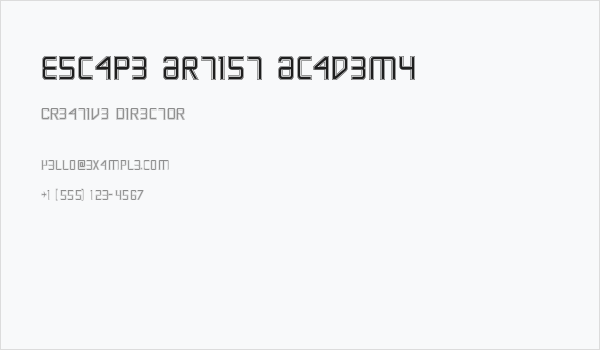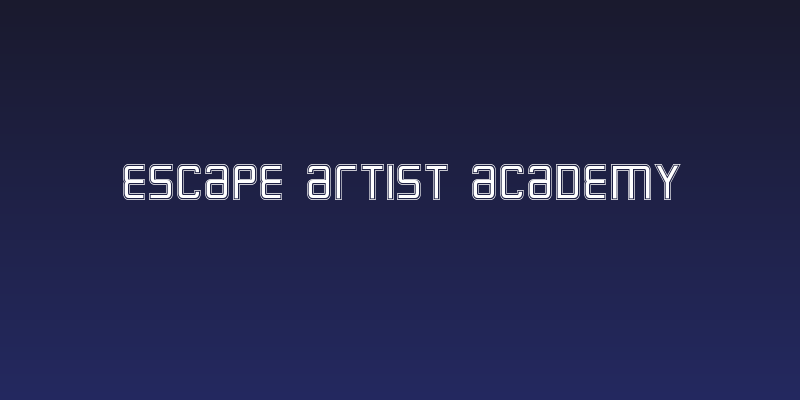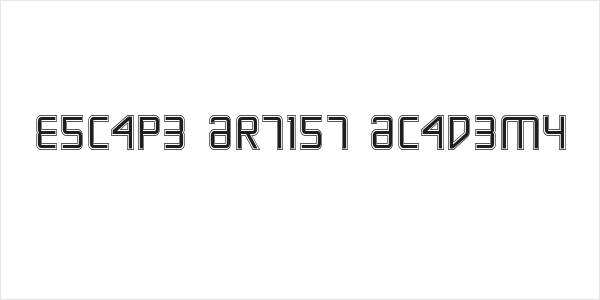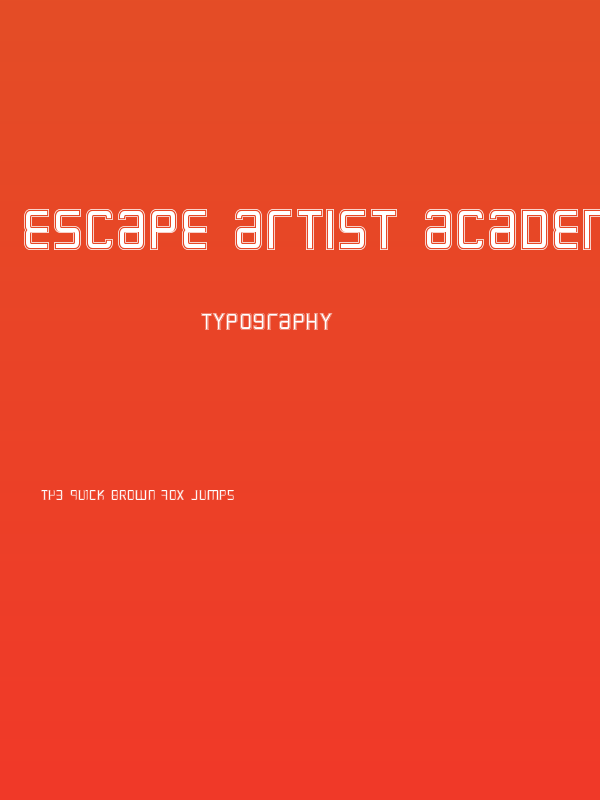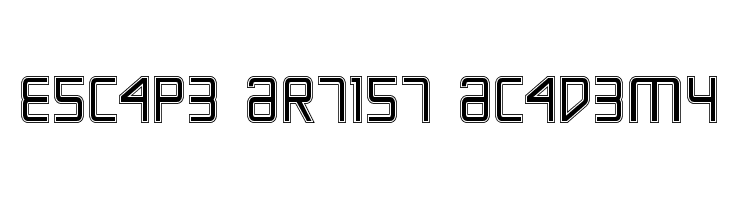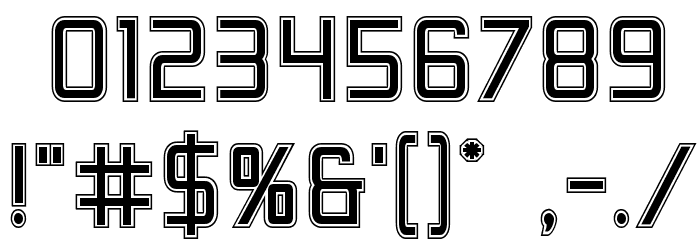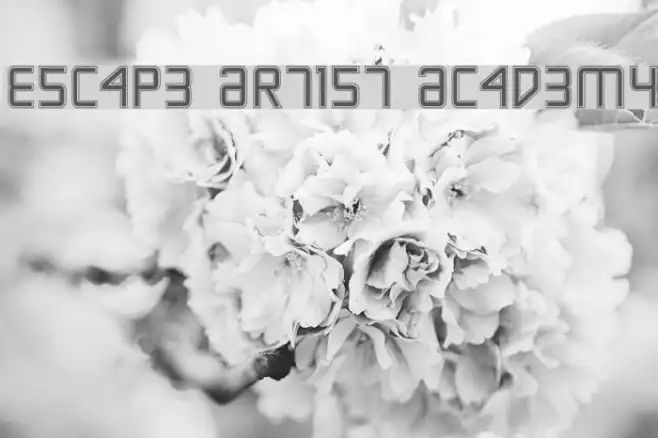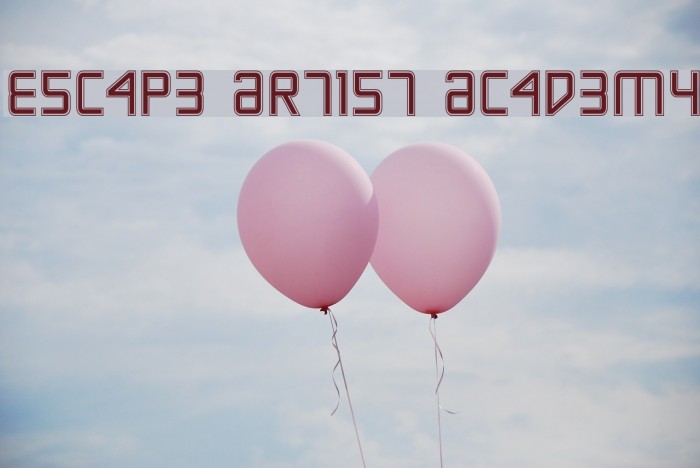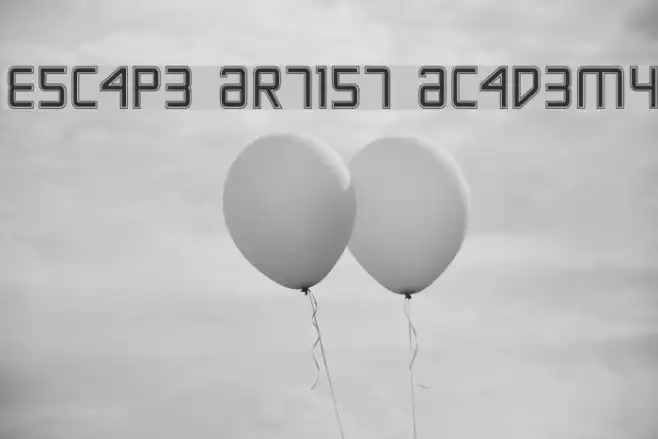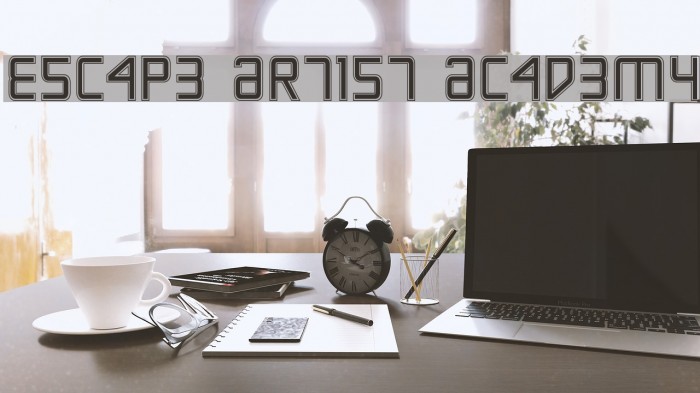
Escape Artist Academy Font
Escape Artist Academy Description
This font features a bold, geometric design with a distinct outline style that gives it a futuristic and modern appearance. The characters are constructed with clean, straight lines and sharp angles, creating a sense of precision and technicality. The uppercase and lowercase letters maintain a consistent height, contributing to a uniform and structured look. The numbers and special characters follow the same design principles, ensuring a cohesive appearance across all glyphs. This font's unique outline effect adds depth and dimension, making it stand out in various design contexts.
| Proposed Projects | Ideal for technology-themed projects, sci-fi posters, video game graphics, or any design requiring a modern and technical aesthetic. |